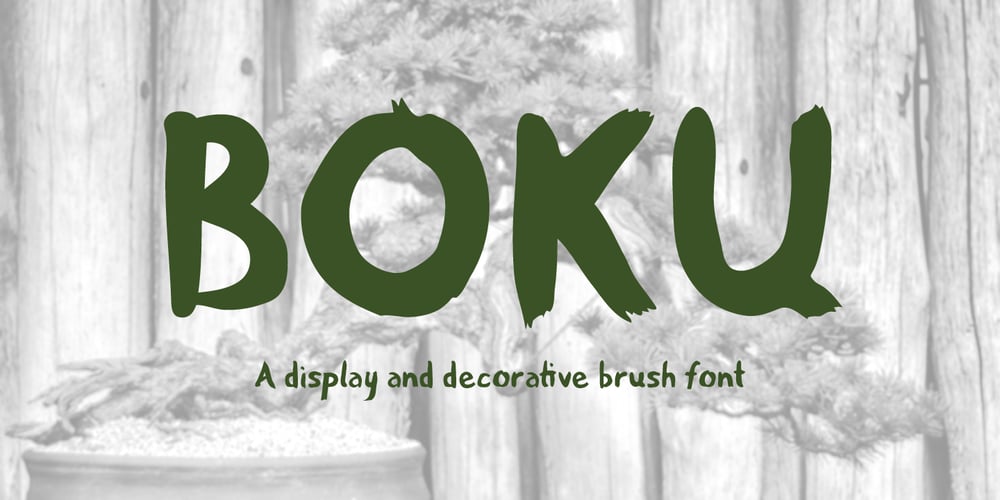
Boku
Boku font
Boku Font Family was designed by Cameron Ward and published by Handiwork. Boku contains 1 styles and family package options. Boku is a brush font inspired by Suiboku-ga/Sumi-e paintings and Japanese calligraphy. This hand made font is a soft, charming, and a versatile brush font to add to your collection! In addition to a full alphabet, Boku comes with 10 unique Suiboku-ga inspired illustrations.